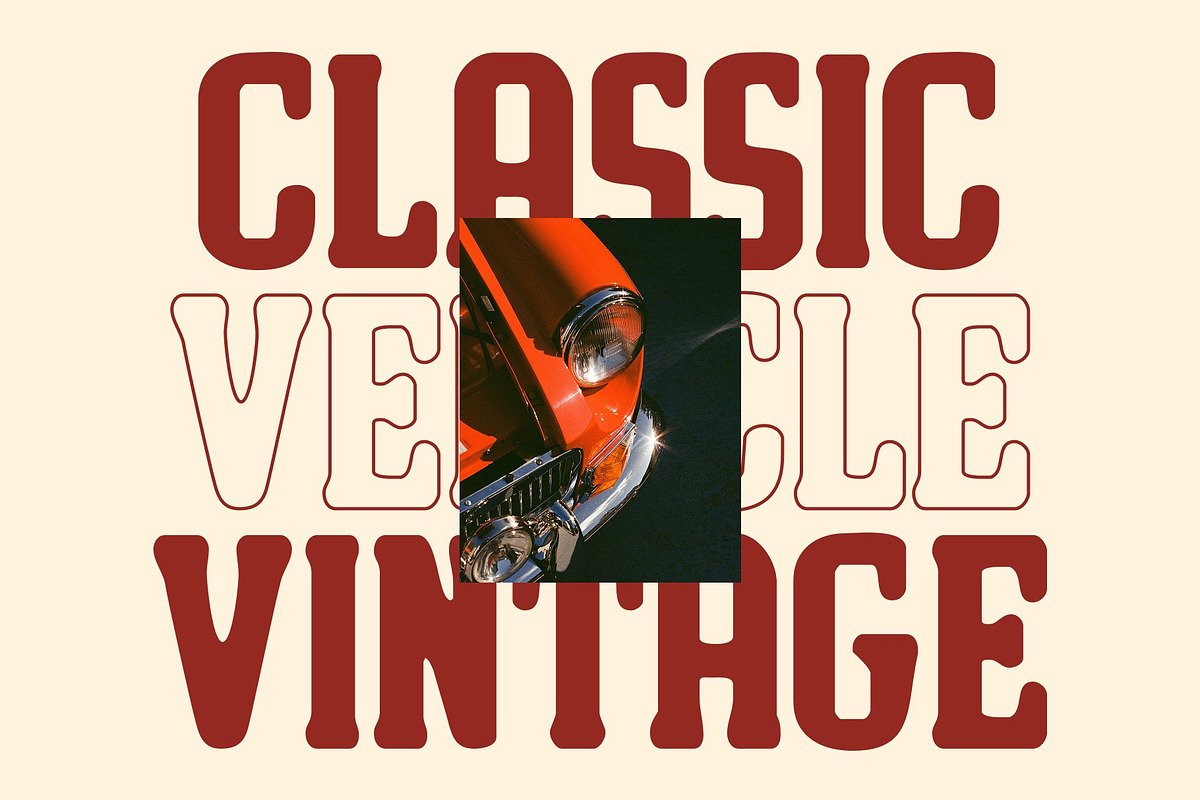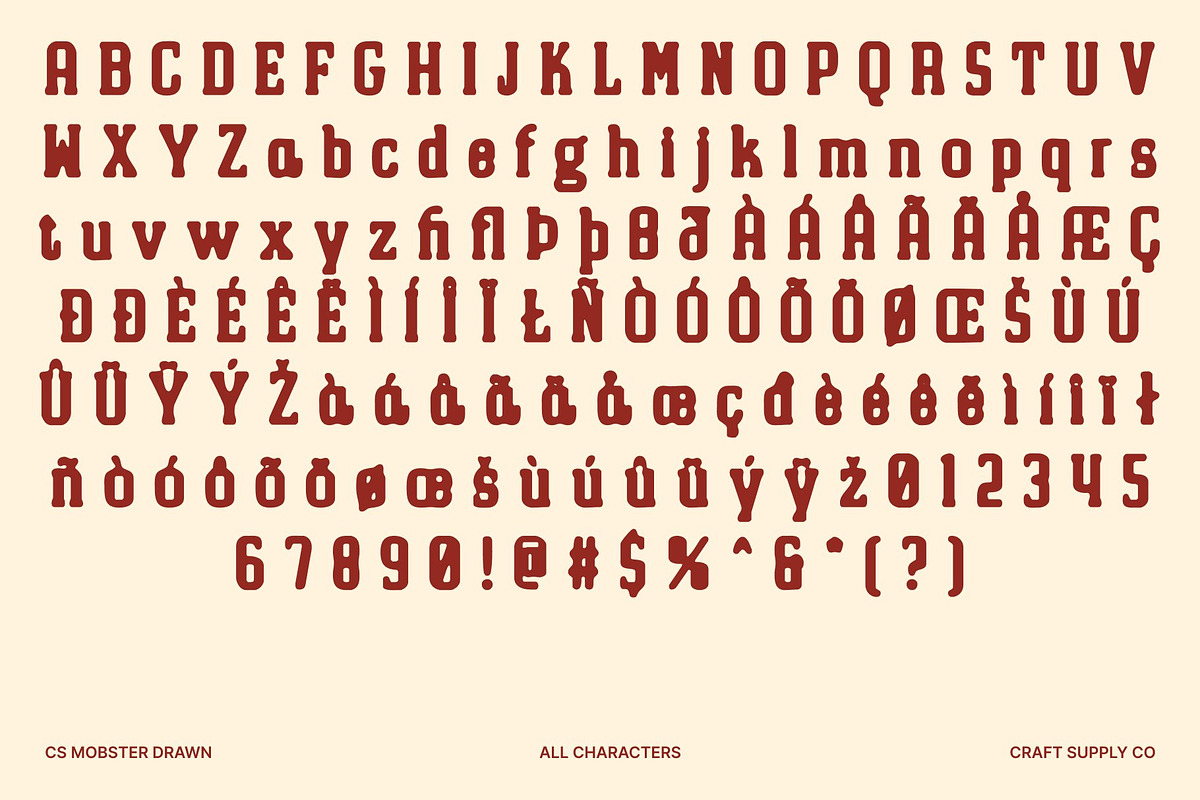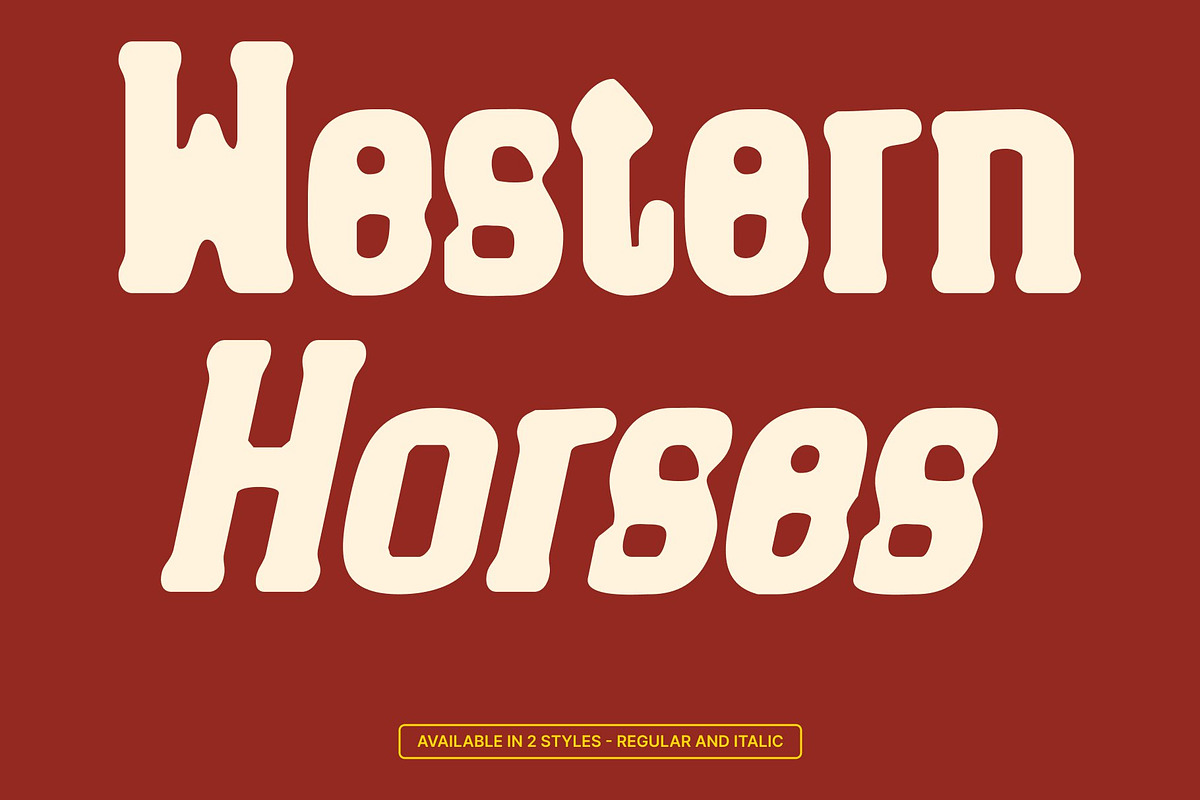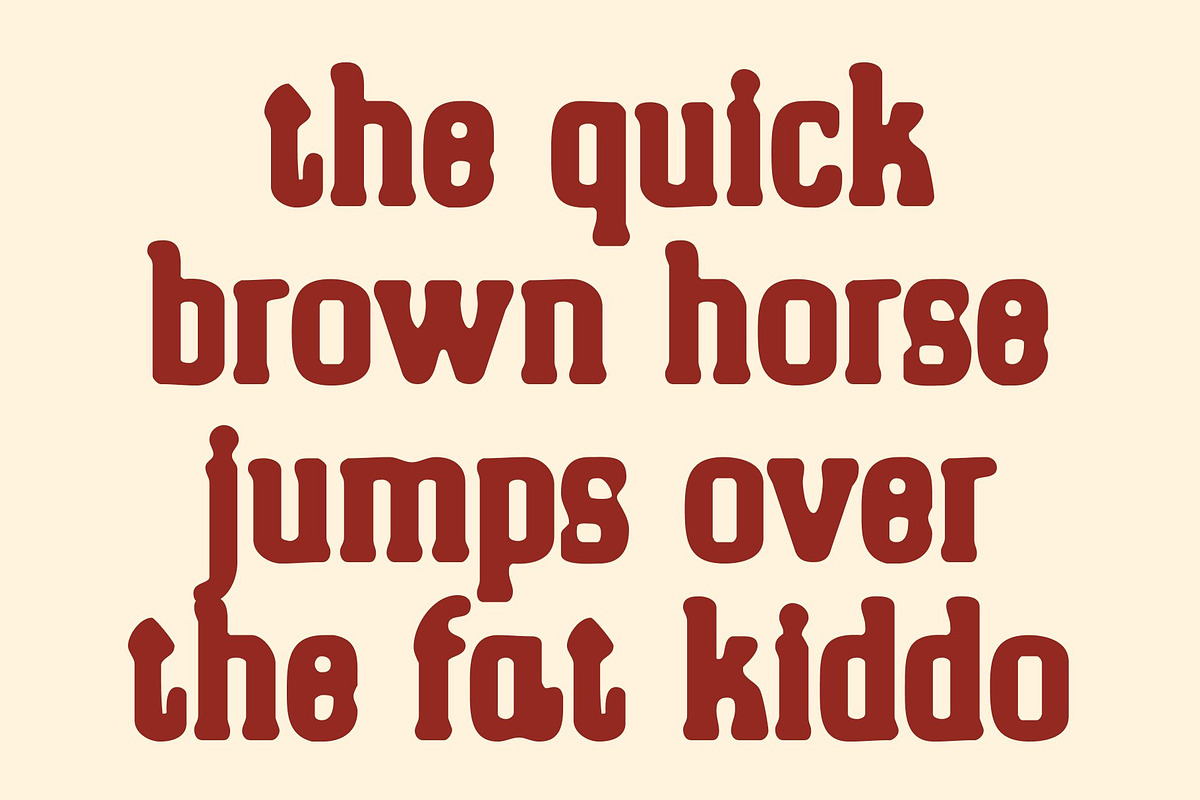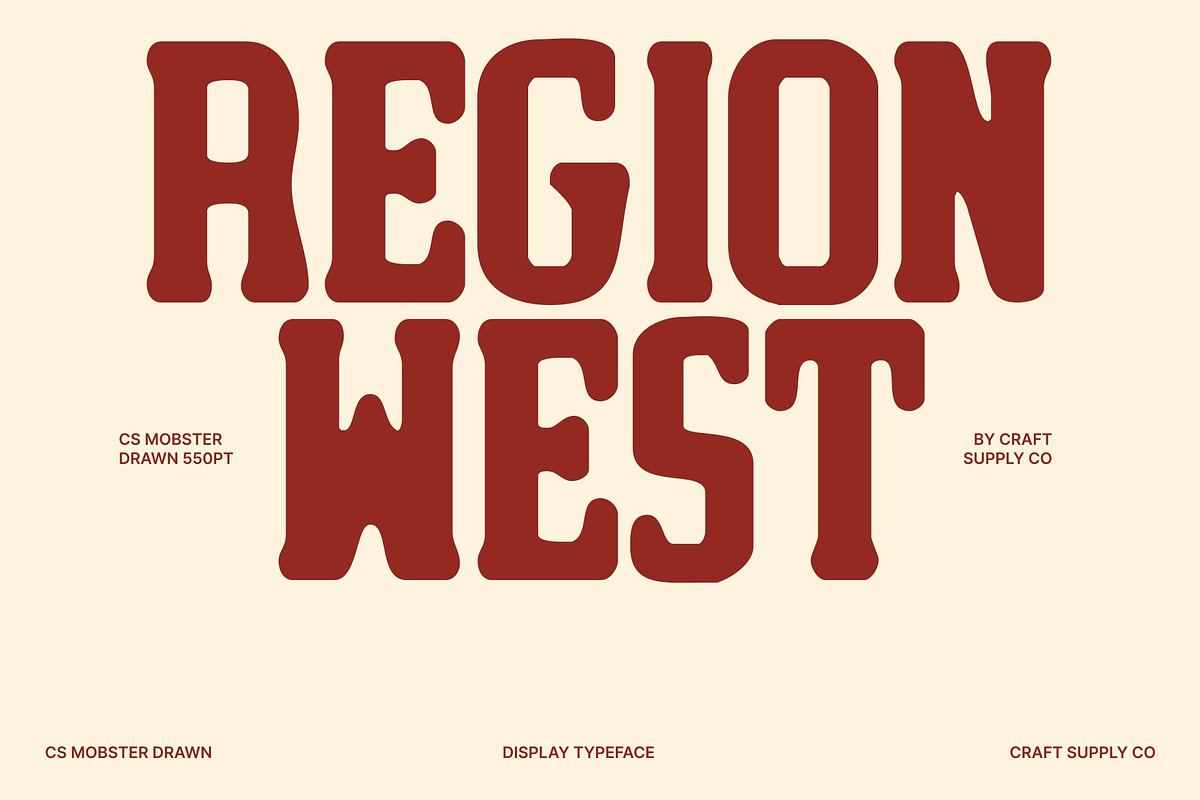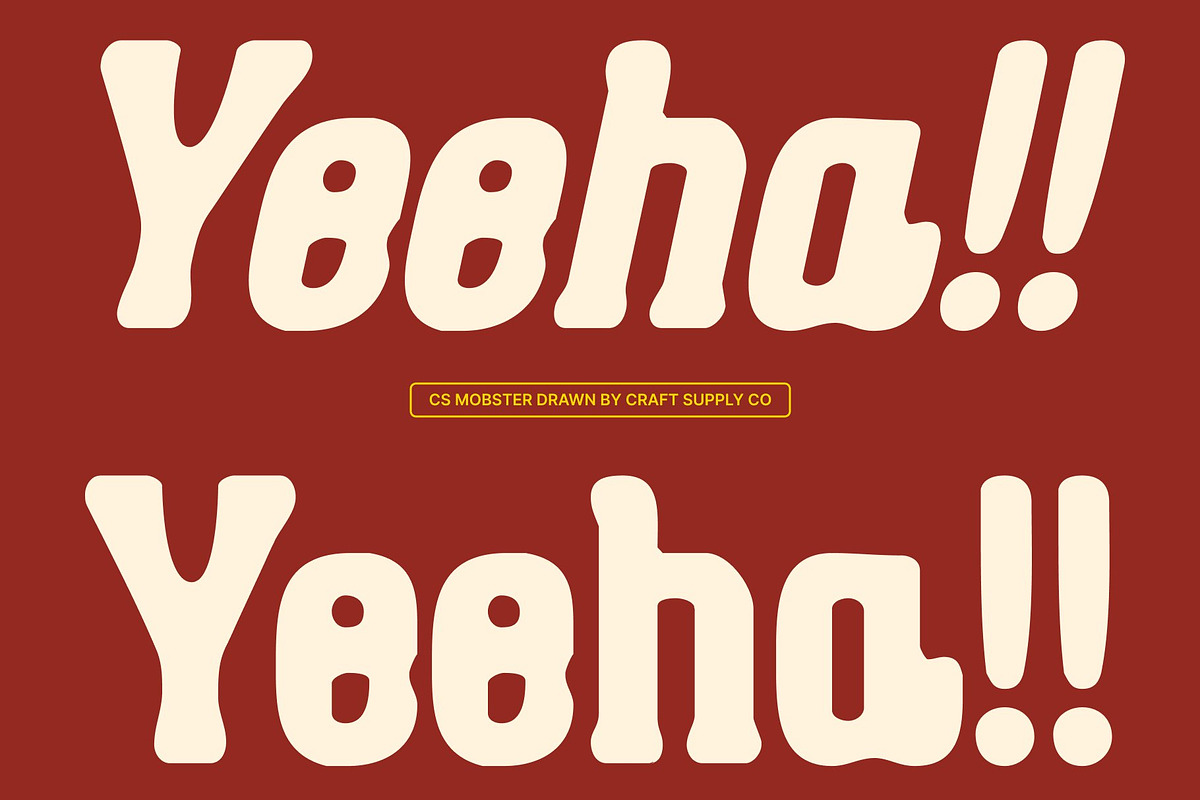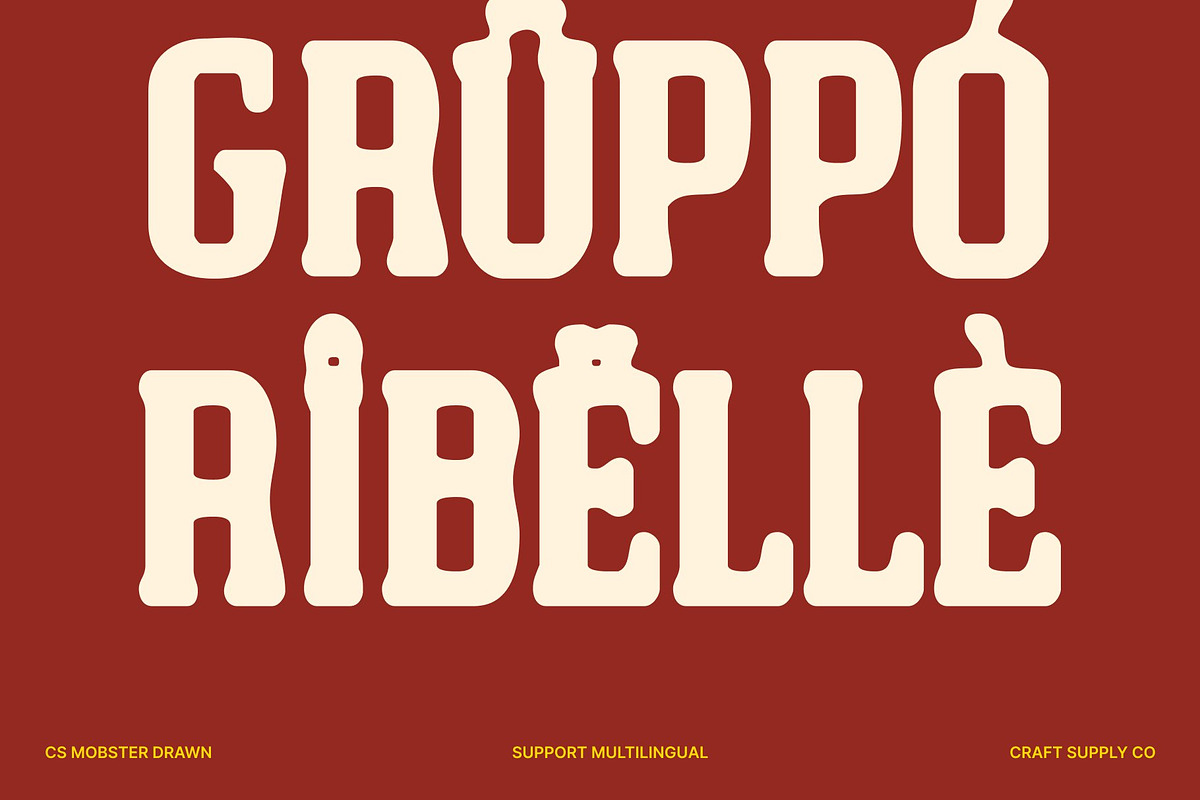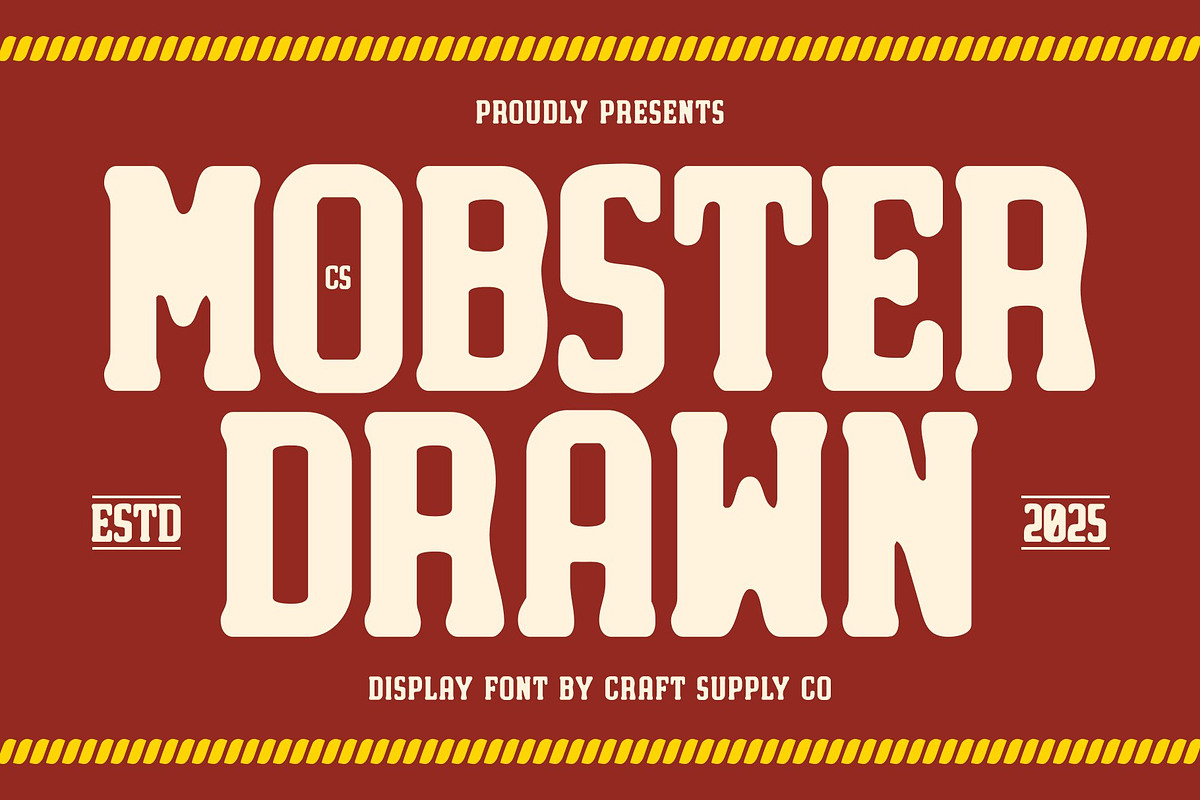
CS Mobster Drawn
CS Mobster Drawn – Slab Serif Font with Timeless Strength
Classic Slab Serif with Hand-Drawn Character This is a slab serif display font designed to deliver clarity, strength, and timeless appeal. Inspired by mid-19th century typefaces, it features generous slab serifs and solid construction, enhanced with a subtle hand-drawn texture that adds warmth and authenticity. The result is a typeface that feels dependable, confident, and visually refined.
Neat Letterforms with Strong Structure Each character is carefully crafted with balanced proportions and consistent spacing, creating a harmonious and highly readable composition. The sturdy slab serifs provide a grounded, hard-working impression, while the clean lines keep the overall look polished and controlled. This balance allows this font to stand out without feeling overly decorative or heavy.
Vintage Roots with Modern Versatility Rooted in the typographic traditions of the mid-1800s, this font captures the classic spirit of early slab serif typography while adapting it for contemporary design needs. Its historical influence adds authority and character, while the drawn detail brings a human touch that keeps the font relevant and approachable.
Ideal for Headlines, Logos, and Branding This font performs exceptionally well in headlines, logos, packaging, jackets, and editorial layouts that require a strong yet elegant voice. Its slab serif structure enhances visibility and impact, ensuring your message is delivered with confidence, stability, and style.